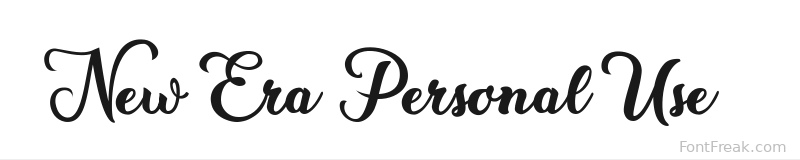
New Era Personal Use
New Era Personal Use font by Billy Argel Fonts is an elegant script typeface that captures a blend of modernity and timeless charm. Characterized by its fluid strokes and graceful curves, this font features a medium stroke weight with subtle variations that enhance its visual appeal. The high contrast between thick and thin lines adds a dynamic quality, while its well-spaced letters ensure readability without compromising style. Decorative elements such as swashes and flourishes give it a personal touch, making it ideal for creative projects.
This font is perfect for a variety of use cases. Graphic designers can utilize New Era Personal Use for wedding invitations, where its romantic flair sets a beautiful tone. Content creators may find it suitable for social media graphics, adding a sophisticated yet approachable feel to their posts. Small business owners can leverage this font for branding materials, such as logos and packaging, that require a unique and inviting presence. Additionally, it works wonderfully for event signage, lending a touch of elegance to any occasion.
What sets New Era Personal Use apart is its ability to convey warmth and personality while maintaining professionalism. This unique font stands out due to its artistic qualities and usability across a range of applications. Whether you're crafting a heartfelt invitation or designing eye-catching promotional materials, the New Era Personal Use font free download will elevate your work and leave a lasting impression.